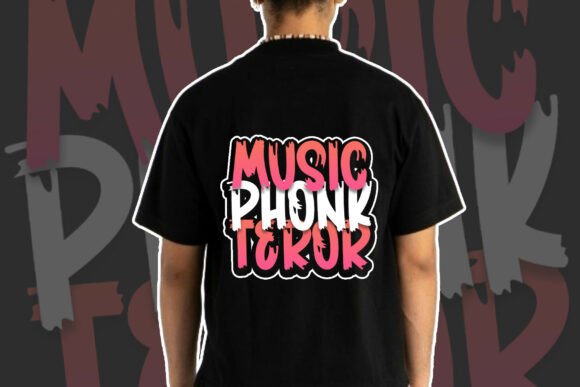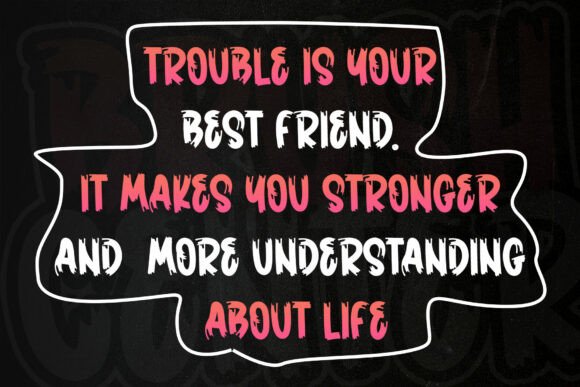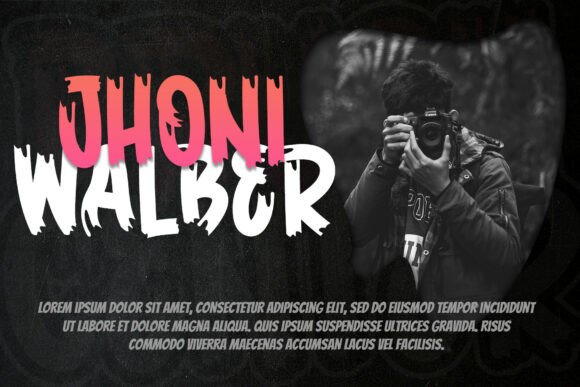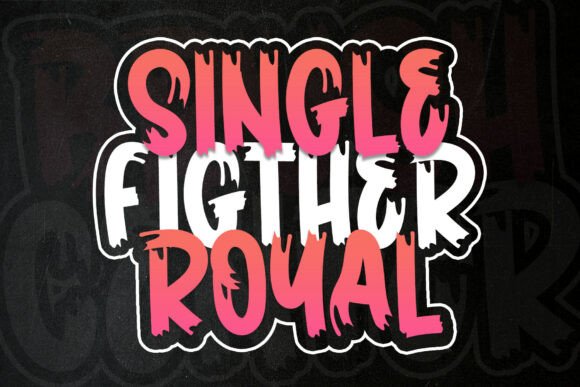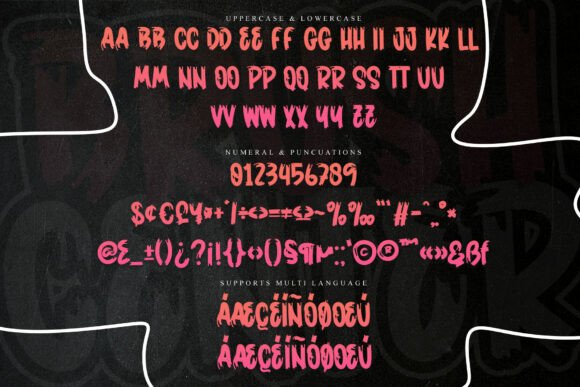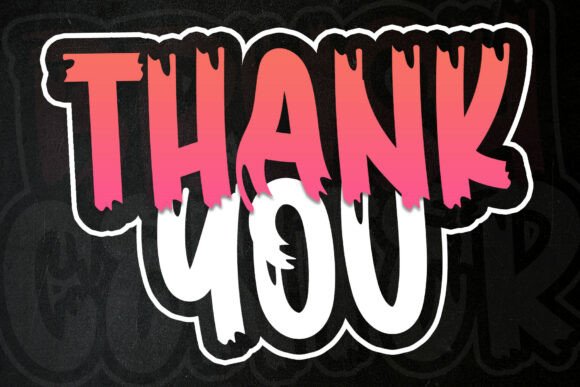
Introducing Brush Center: The Ultimate Modern Display Font for Bold Designs
In the world of typography, a font can make or break a design. If you’re looking for a font that exudes energy, playfulness, and a touch of modern edge, look no further than Brush Center. This vibrant display font is designed to turn heads with its quirky curves and dynamic personality, making it perfect for a wide range of creative projects.
The Perfect Blend of Playfulness and Sophistication
Brush Center strikes the perfect balance between playfulness and modern sophistication. Its unique, hand-brushed curves give it a lively, spontaneous feel that’s perfect for designs that need to stand out from the crowd. Whether you’re working on a bold magazine cover, a trendy streetwear logo, or eye-catching ads, Brush Center adds a touch of personality and flair that’s sure to captivate your audience.
One of the best things about Brush Center is its versatility. This modern display font can be used for a wide range of design projects, including:
- Headlines and Titles: Add a pop of personality to your headlines and titles with Brush Center’s bold, attention-grabbing curves.
- Logos and Branding: Create a lasting impression with a custom logo or branding design that showcases your unique personality and style.
- Posters and Flyers: Make a statement with bold, eye-catching posters and flyers that demand attention.
- Social Media Graphics: Elevate your social media presence with engaging, shareable graphics that showcase your brand’s personality.
- Editorial Design: Add a touch of modern edge to your editorial designs, from magazine covers to book titles and more.
Key Features of Brush Center
So what sets Brush Center apart from other display fonts? Here are just a few of its key features:
- Unique, Hand-Brused Curves: Brush Center’s hand-brushed curves give it a lively, spontaneous feel that’s perfect for designs that need to stand out.
- Modern and Playful Vibe: This font combines the perfect blend of modern sophistication and playful personality.
- High-Energy Design: Brush Center is designed to command attention and make a statement.
- Instant Impact: Add instant impact to your designs with Brush Center’s bold, attention-grabbing curves.
Why Choose Brush Center?
With so many display fonts on the market, why choose Brush Center? Here are just a few reasons why designers and crafters love this font:
- Easy to Read: Despite its bold, playful curves, Brush Center is surprisingly easy to read, even at smaller sizes.
- Versatile: This font can be used for a wide range of design projects, from logos and branding to social media graphics and editorial design.
- Unique Personality: Brush Center has a unique personality that’s sure to set your designs apart from the crowd.
- High-Quality Design: This font is designed to high-quality standards, ensuring that your designs look professional and polished.
Get Ready to Make a Statement with Brush Center
| Author | 21Design |
In conclusion, Brush Center is a game-changing modern display font that’s perfect for designers and crafters who want to add a touch of personality to their designs. With its unique, hand-brushed curves and dynamic personality, this font is sure to turn heads and make a lasting impression. Whether you’re working on a bold magazine cover, a trendy streetwear logo, or eye-catching ads, Brush Center delivers the perfect mix of playfulness and modern edge. So why wait? Get ready to make a statement with Brush Center and take your designs to the next level!